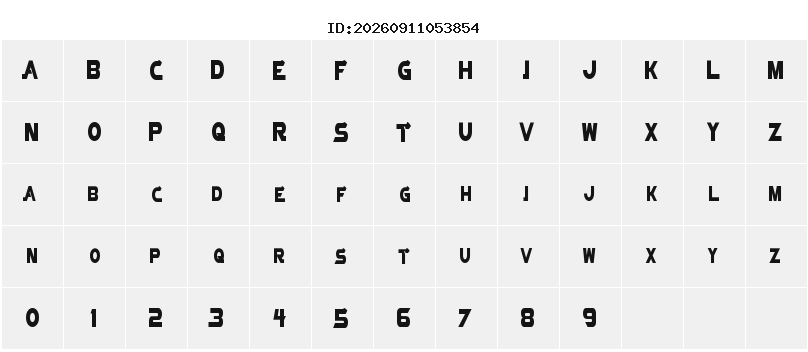
Vector Sigma Condensed Preview
About Vector Sigma Condensed.ttf
Vector Sigma Condensed.ttf is a modern, elegant sans-serif font designed for ultimate readability and visual harmony. Perfect for branding, headlines, web design, and print materials.